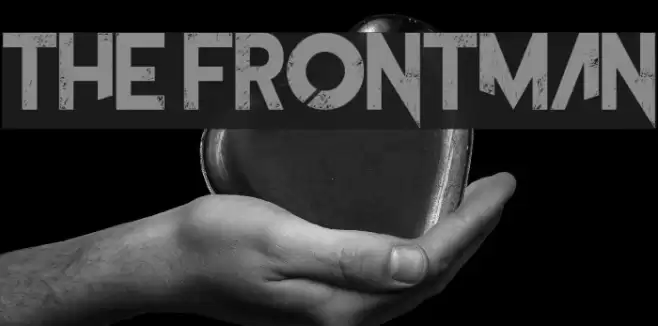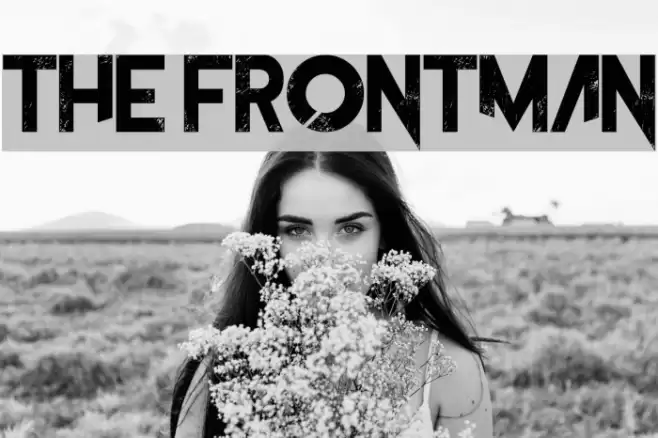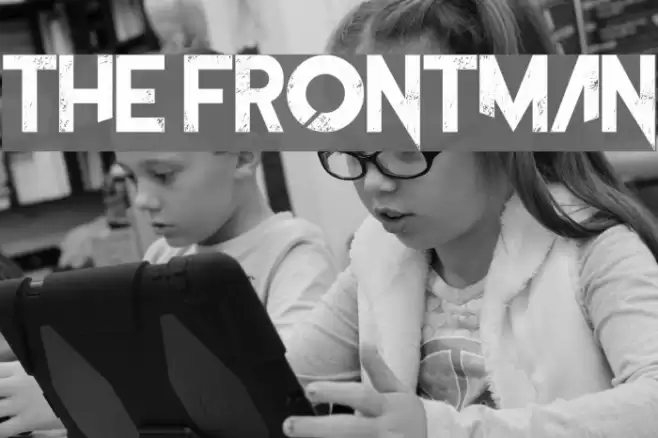
The Frontman Font
The Frontman Description
This font features a bold, geometric design with a distressed texture that gives it a rugged, vintage feel. The uppercase letters are characterized by sharp angles and clean lines, creating a strong and impactful appearance. The distressed effect adds a layer of depth and personality, making it ideal for designs that require a touch of edginess. The font maintains a consistent weight throughout, ensuring readability while still delivering a unique aesthetic. Its bold nature makes it suitable for headlines and titles, where it can stand out and capture attention.
A bold, geometric font with a distressed, vintage texture from Distorted Eroded fonts.
- Font: The Frontman
- Proposed Projects: Ideal for poster designs, album covers, branding projects, and any creative work that requires a bold, vintage-inspired look.
- Overall Style: Vintage